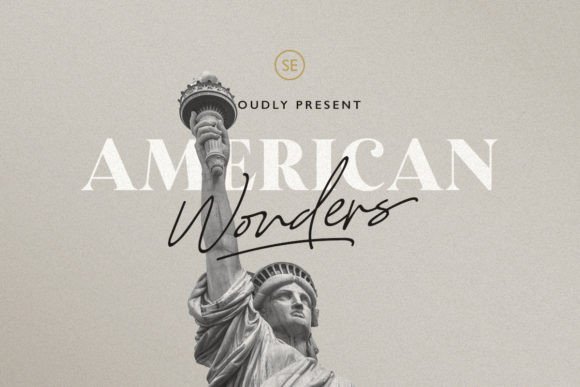
American Wonders is a package of two fonts containing a signature script and a bold serif. These versatile fonts can be used for any project. The bold serif is strong and powerful, while the signature script is soft and authentic.
American Wonders Font